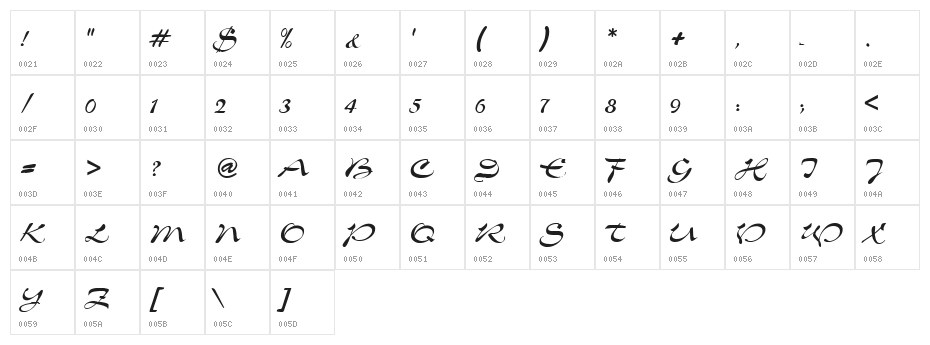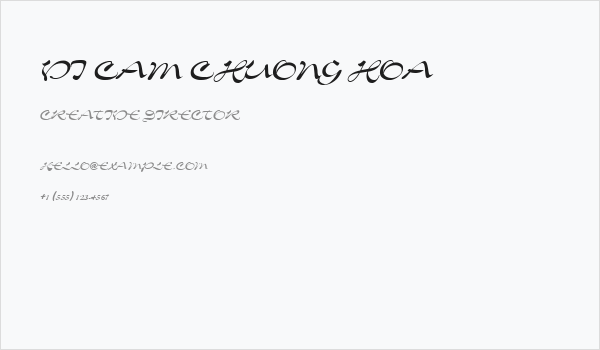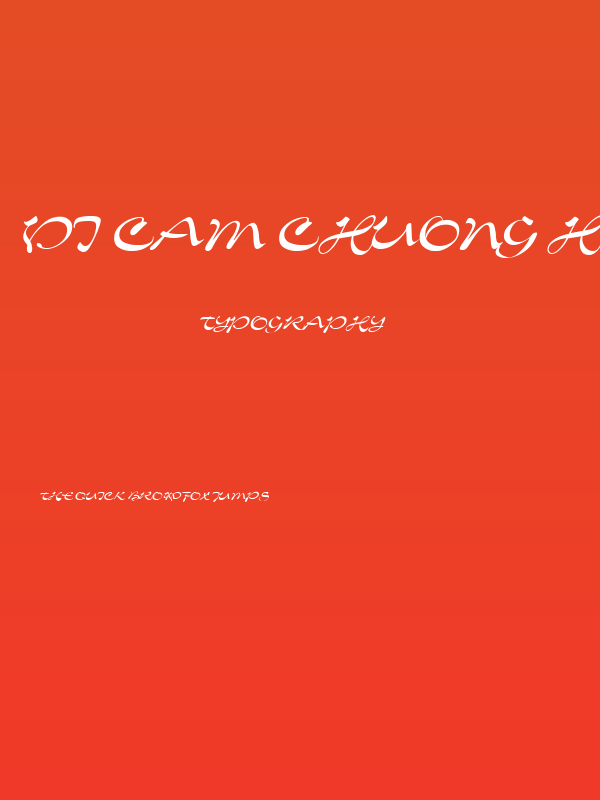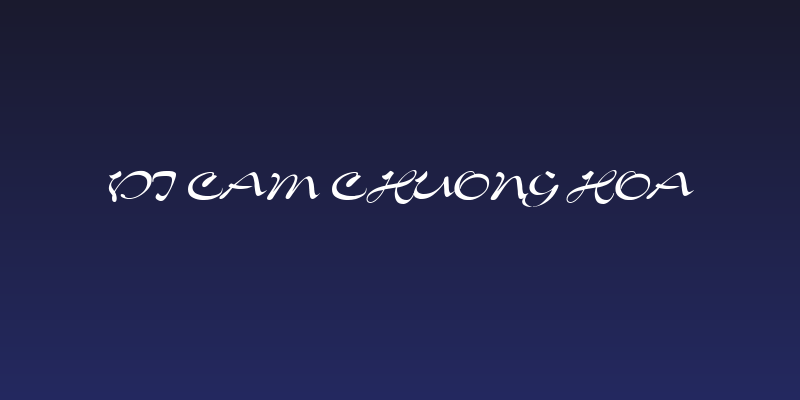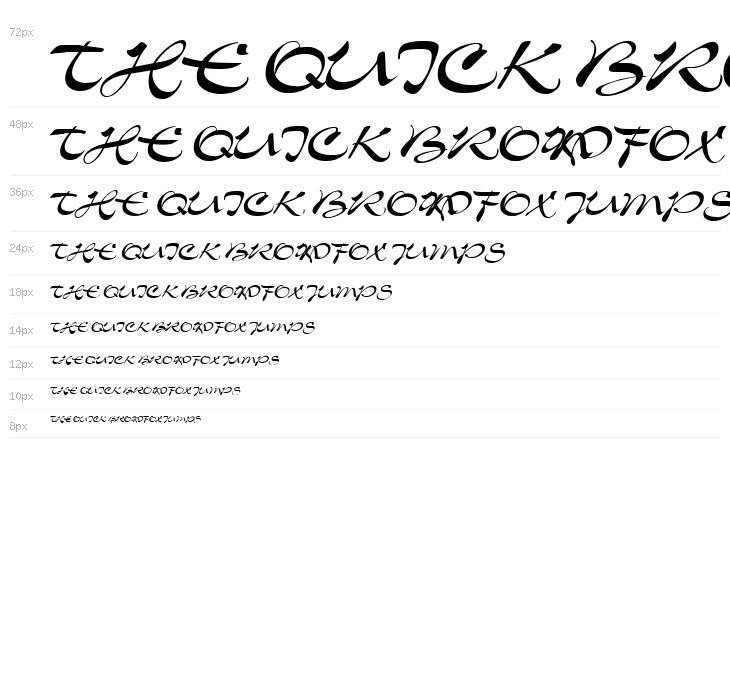
VI Cam Chuong Hoa Font
VI Cam Chuong Hoa Description
This font is a decorative script style characterized by its elegant and flowing letterforms. The uppercase letters exhibit intricate loops and flourishes, giving it a sophisticated and ornate appearance. The lowercase letters maintain a consistent style with smooth curves and delicate connections between characters. The numerals are designed to complement the overall aesthetic, featuring similar curves and embellishments. Special characters are also crafted with attention to detail, enhancing the decorative nature of the font. This font is ideal for projects that require a touch of elegance and formality.
| Proposed Projects | Ideal for wedding invitations, formal event programs, elegant branding, and luxury product packaging. |